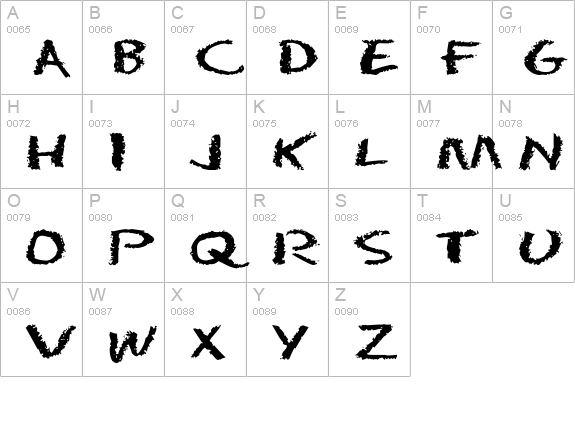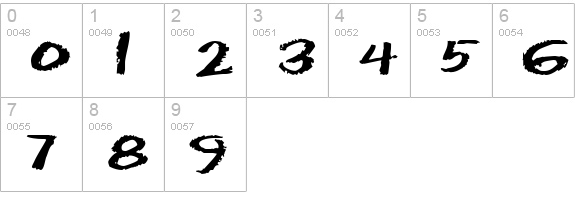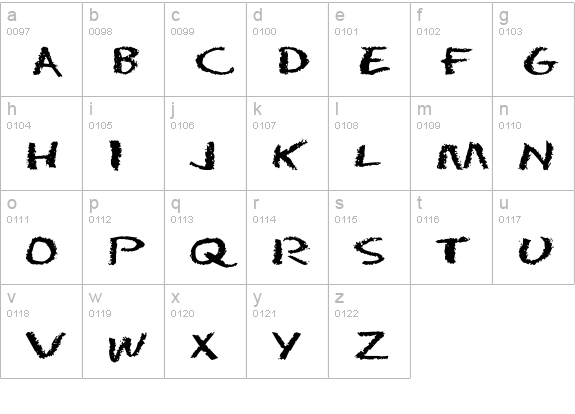
ChalkDustExtended Font Details
ChalkDustExtended font is a whimsical and charming typeface that brings a playful and hand-drawn feel to any design project. With its extended characters and unique chalk-like texture, this font is perfect for adding a touch of creativity to posters, signage, invitations, and more. The free-spirited and casual vibe of ChalkDustExtended font makes it a versatile choice for both digital and print applications. Best of all, ChalkDustExtended font is freely available for download at FontsMarket.com. Whether you're a designer looking to add a fun twist to your creations or simply want to enhance your personal projects with a touch of creativity, ChalkDustExtended font is sure to make a lasting impression. Download it today and let your imagination run wild with this delightful and expressive typeface.